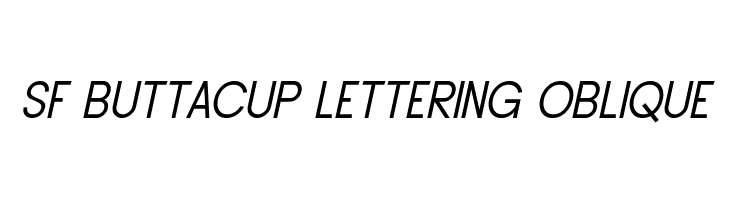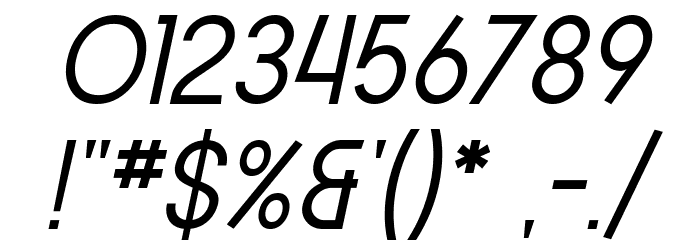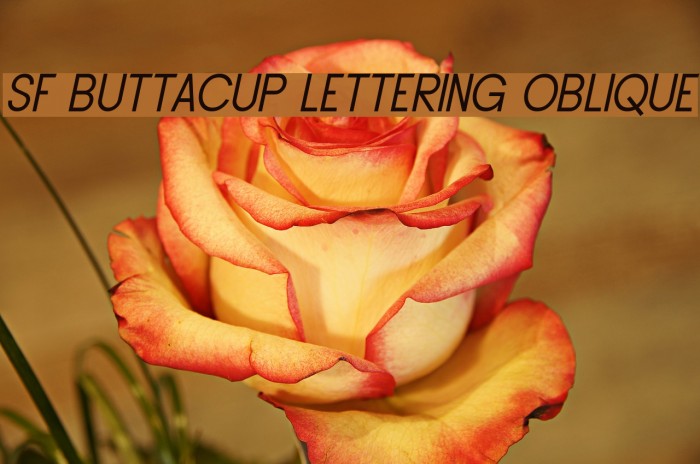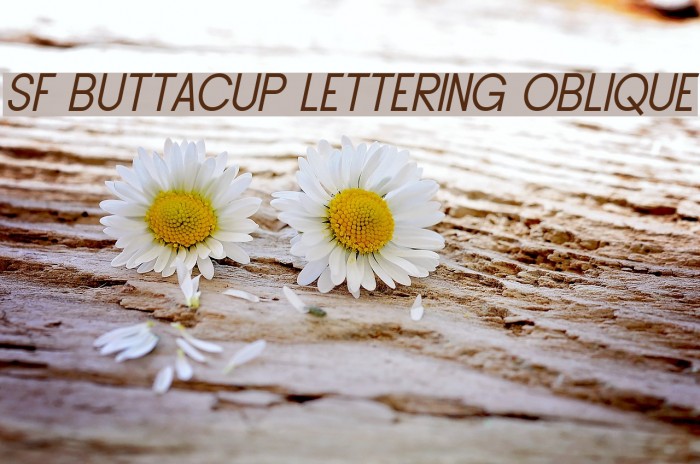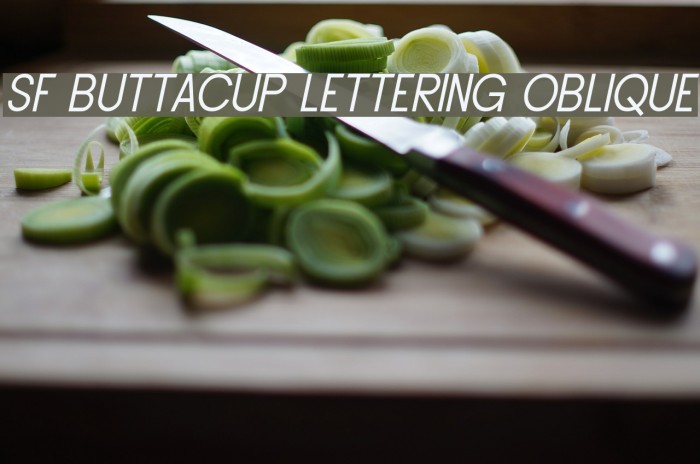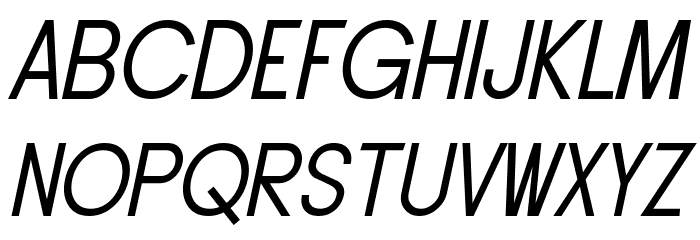
SF Buttacup Lettering Oblique Font
SF Buttacup Lettering Oblique Description
This font features a sleek, oblique style that exudes a modern and dynamic feel. The characters are slightly slanted, giving a sense of motion and energy. The strokes are clean and uniform, with a consistent thickness that maintains readability while adding a touch of elegance. The uppercase and lowercase letters are well-proportioned, and the numerals are clear and distinct. Special characters are included, enhancing its versatility for various applications. The overall design is contemporary, making it suitable for projects that require a stylish and professional look.
| Use Case | Headlines, Logos, Advertising |
| Proposed Projects | Ideal for branding, advertising, and editorial design where a modern and energetic look is desired. |